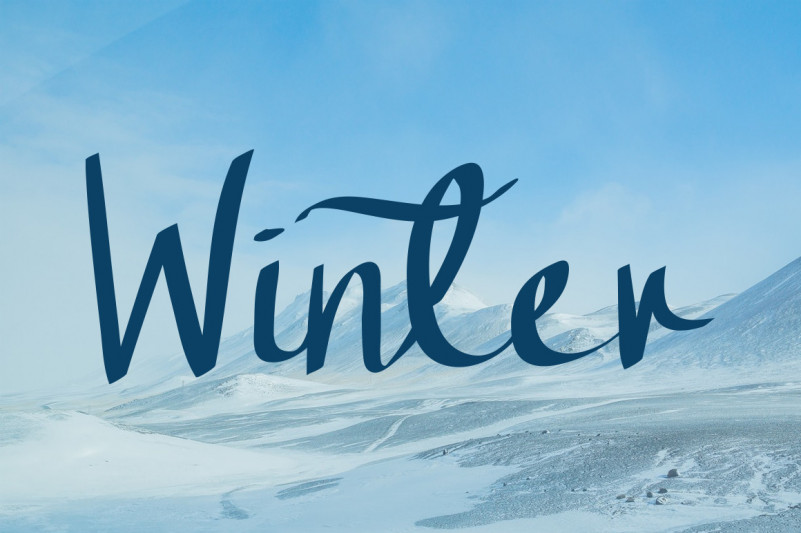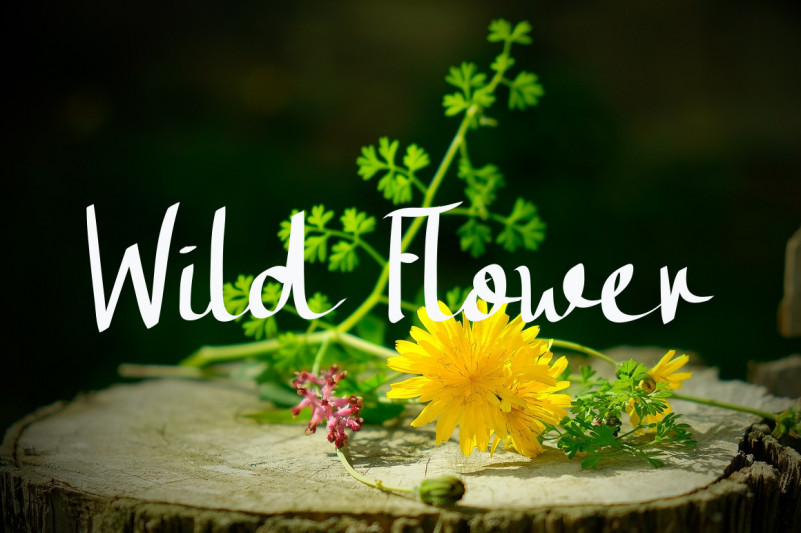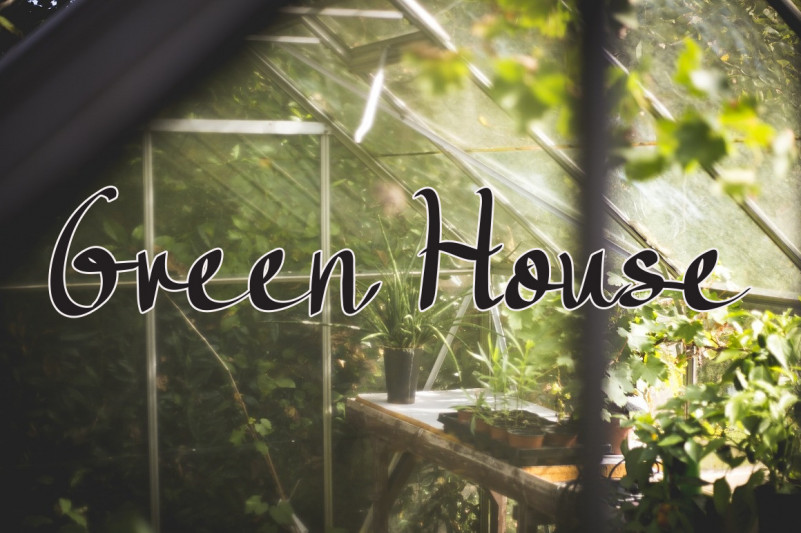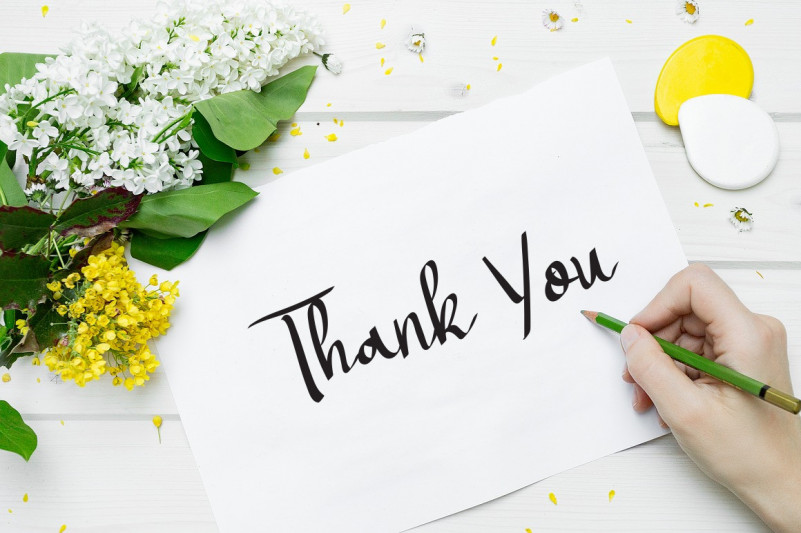
Everest Script Font
This is a dainty, whimsical and cursive handwritten font. This gentle font will look gorgeous on a variety of design ideas. It will add a joyful and romantic touch to each of your projects!